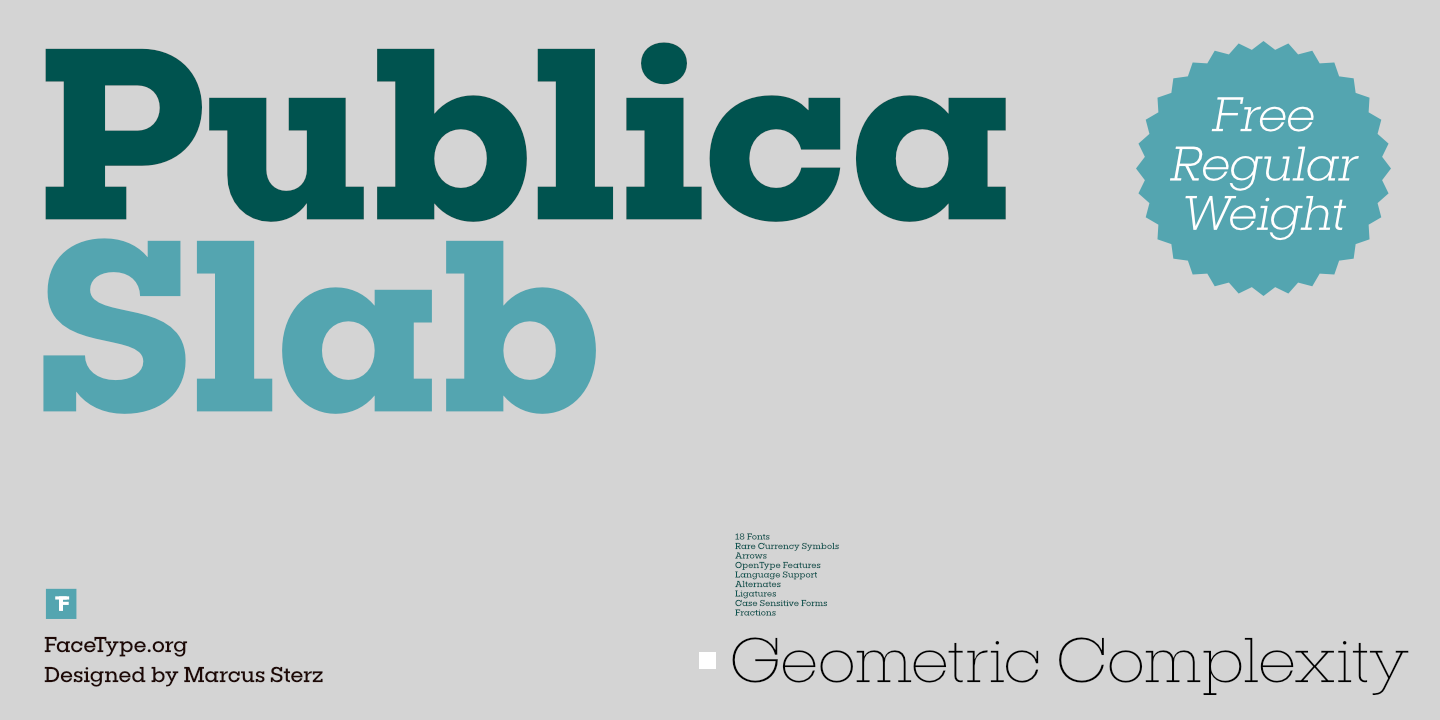
Publica Slab Font is perfect for newspaper headline designs, editorial magazine layouts, public information campaigns, government communications, civic organization materials, community bulletin boards, public service announcements, municipal signage systems, educational institution publications, and official documentation projects. This authoritative typeface excels in applications where public authority and civic responsibility need to be communicated with institutional credibility and democratic transparency that embodies the essence of public service and the trustworthy reliability found in government communications and civic engagement initiatives.
What makes Publica Slab Font exciting is its remarkable ability to project institutional authority and public trust through its solidly constructed letterforms that embody the kind of reliable transparency and democratic accountability that citizens expect from their public institutions and civic organizations. The font captures the essence of public service with its robust construction and civic-minded proportions that suggest the systematic integrity and open communication that characterize effective democratic governance. Its carefully balanced character details and institutional personality create an atmosphere of public confidence that resonates with government agencies, civic organizations, and public service providers who understand the critical importance of clear, trustworthy communication in maintaining democratic participation and public trust.
The Publica Slab Font family typically includes Light, Regular, Medium, and Bold weights, each maintaining the signature institutional characteristics and public authority. Some versions offer comprehensive character sets for multilingual public communications, alternative elements designed for civic applications, and specialized variants optimized for public signage and government documentation. The family may also include condensed styles for efficient public layouts and display cuts designed for maximum civic impact in government and public service applications requiring authentic institutional credibility and democratic transparency.
Whether you're creating government brand identities, public service materials, or civic engagement communications, Publica Slab Font Free Download delivers the perfect institutional authority your public-focused projects deserve. Its civic character and democratic styling make it an invaluable asset for government agencies, public institutions, and civic organizations working in public administration, community engagement, and democratic governance sectors where authentic public trust and transparent institutional communication are essential for maintaining effective democratic participation and building lasting confidence in public institutions and civic processes.